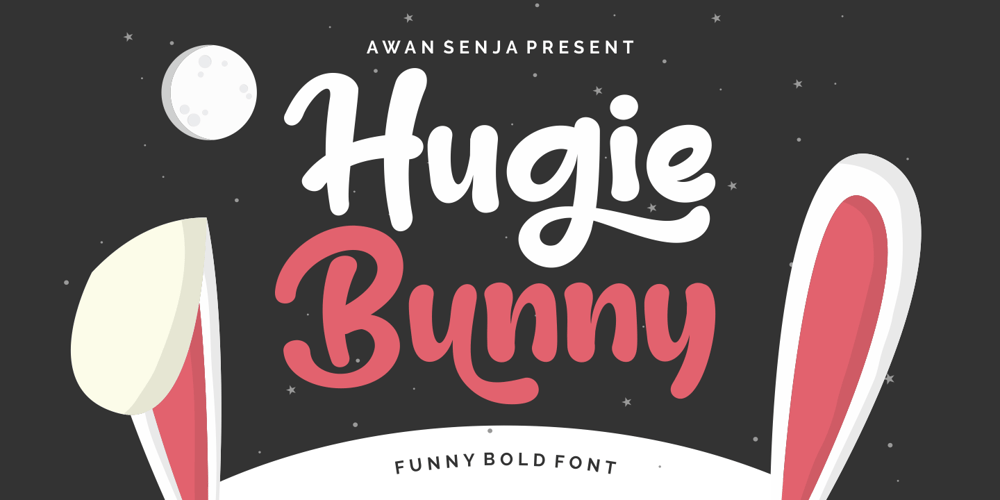
Huggie Bunny Font Family was designed by Riyadh Abuhafs and published by Awan Senja. Huggie Bunny contains 1 styles and family package options. Introducing our newest funny typeface, Hugie Bunny, a nice fun typeface. This font perfectly made to be in poster funny, and the other various formal forms such as invitations, labels, logos, magazines, books, packaging, fashion, make up, stationery, novels, labels or any type of advertising purpose.